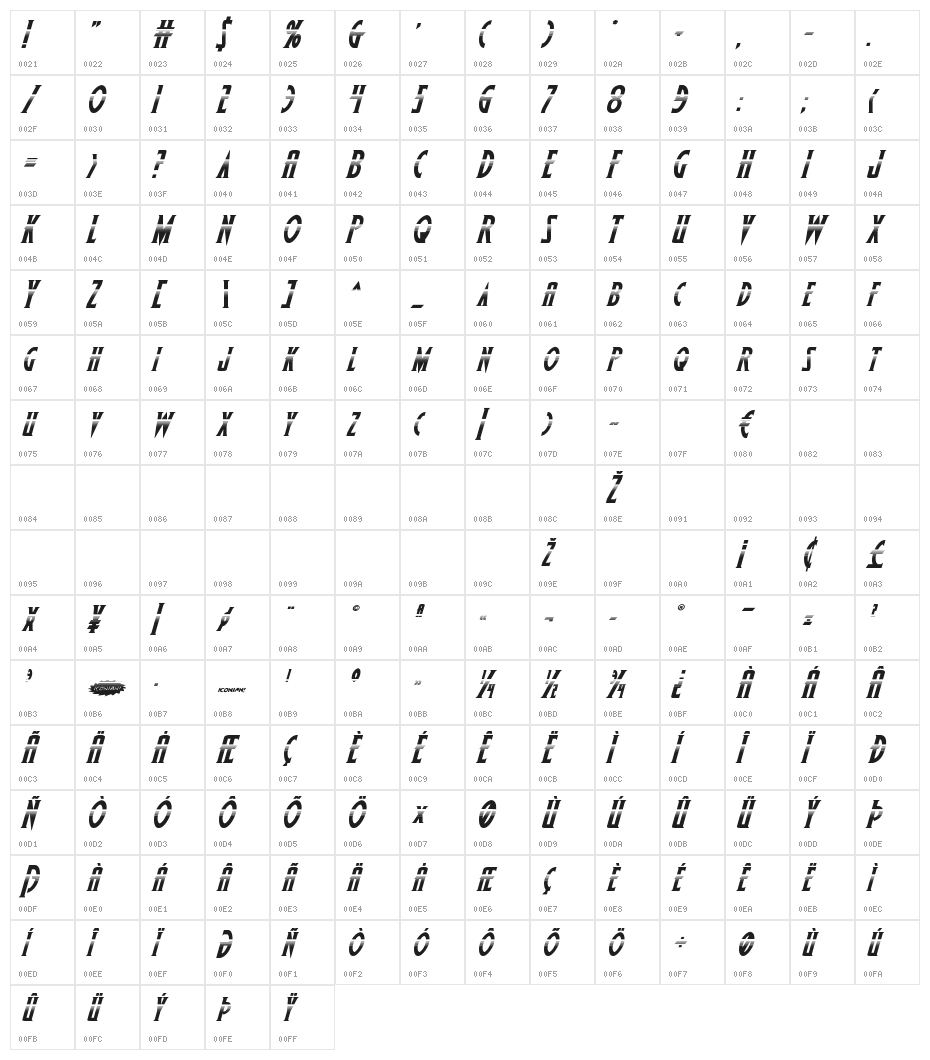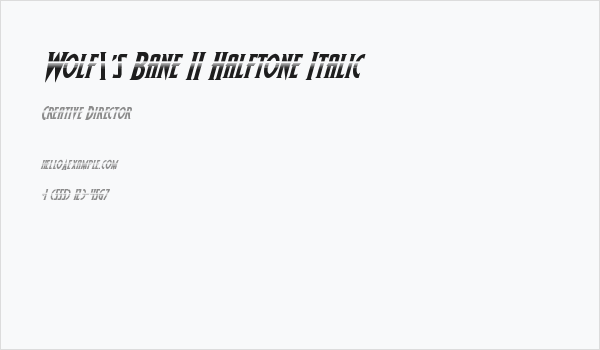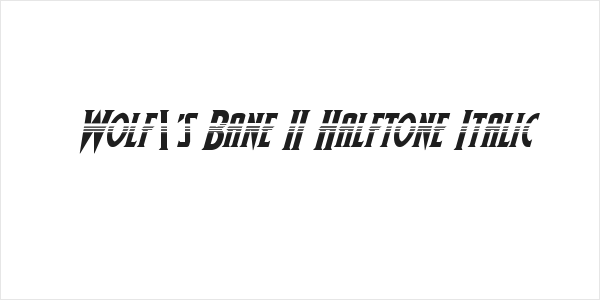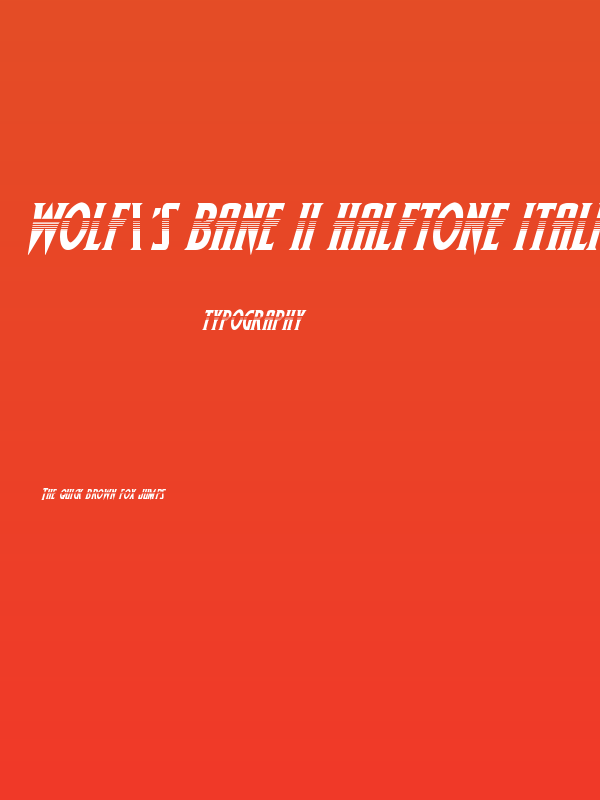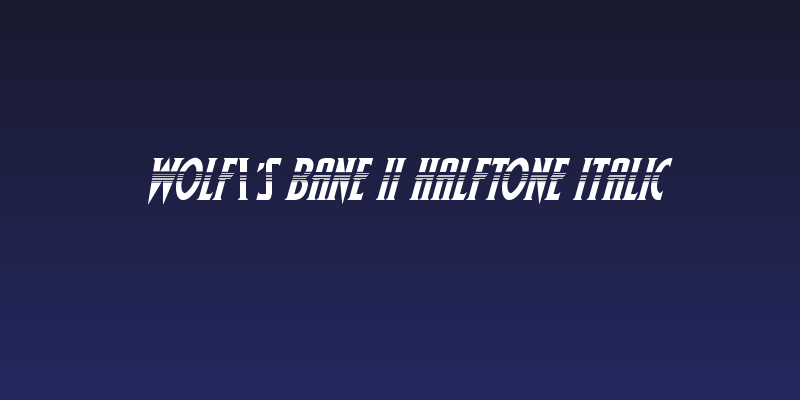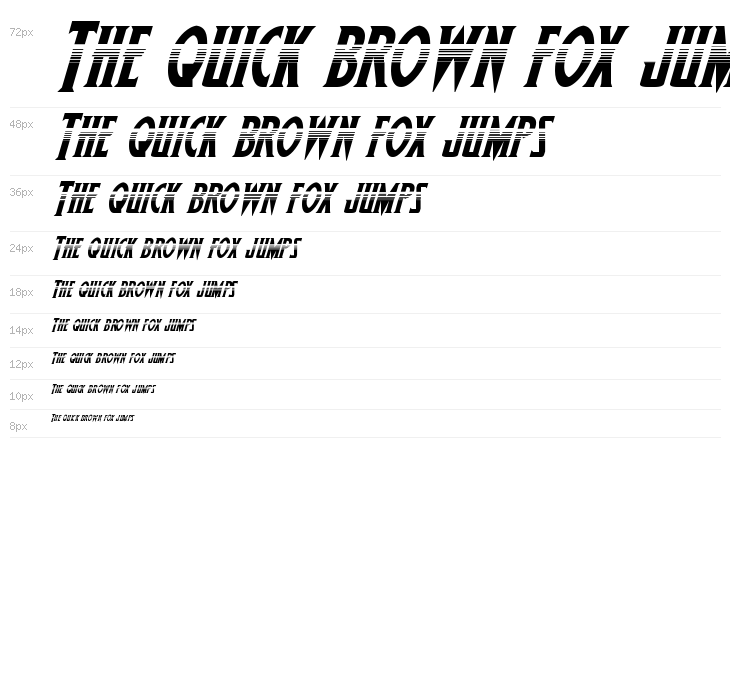
Wolf's Bane II Halftone Italic Font
Wolf's Bane II Halftone Italic Description
This font features a bold and dynamic style with a distinct halftone effect that adds a sense of movement and energy. The italicized letters are sharply angled, giving a sense of speed and urgency. The uppercase and lowercase characters maintain a consistent slant, enhancing the cohesive look. The numbers and special characters follow the same stylistic approach, ensuring uniformity across all elements. The halftone pattern within each character creates a unique texture, making it stand out in any design. This font is ideal for projects that require a bold statement and a modern, edgy aesthetic.